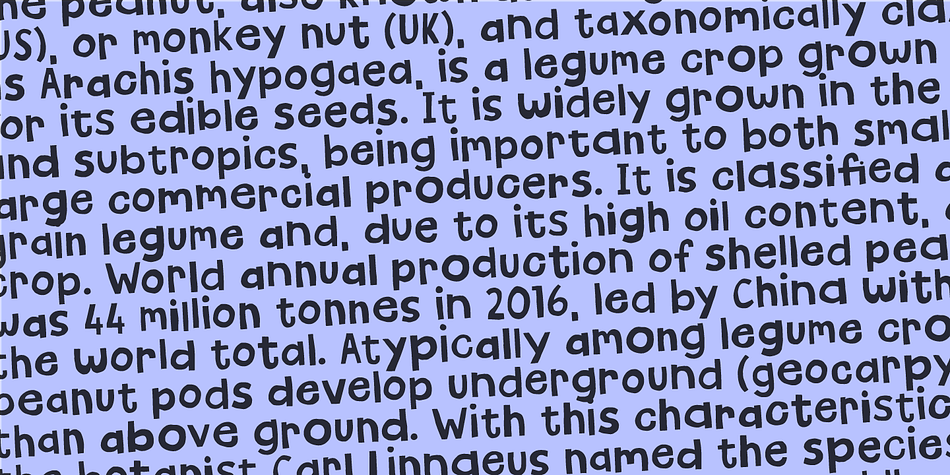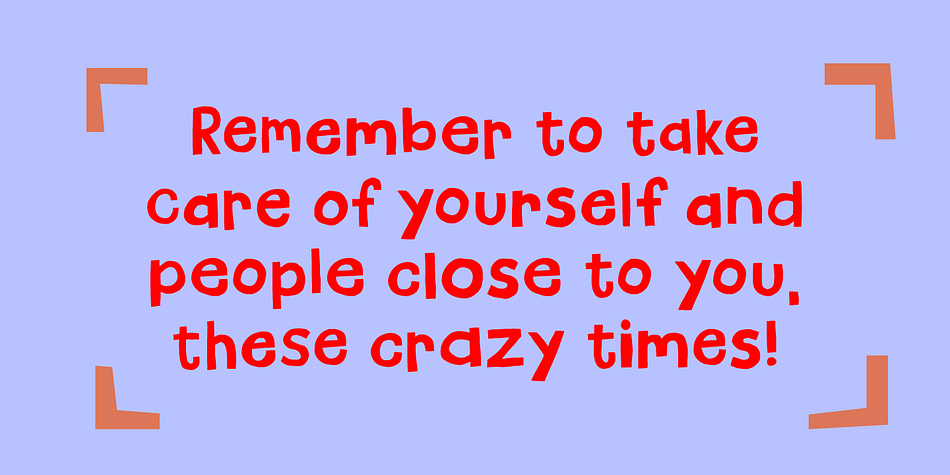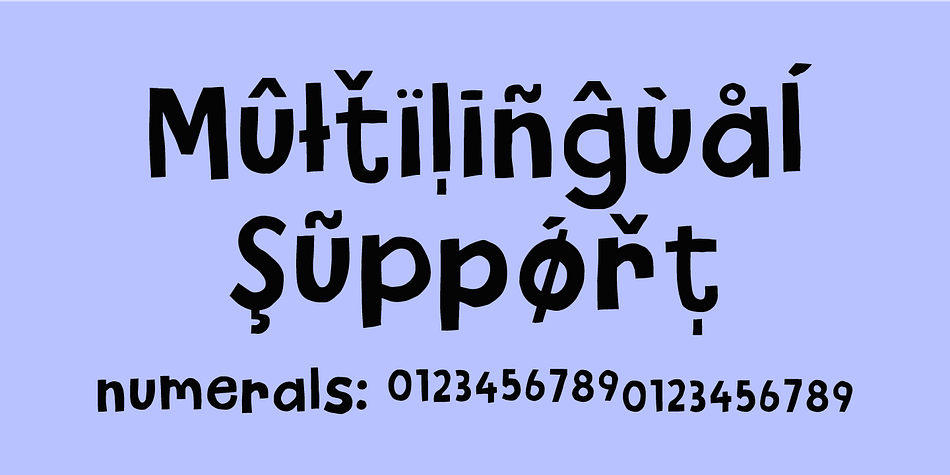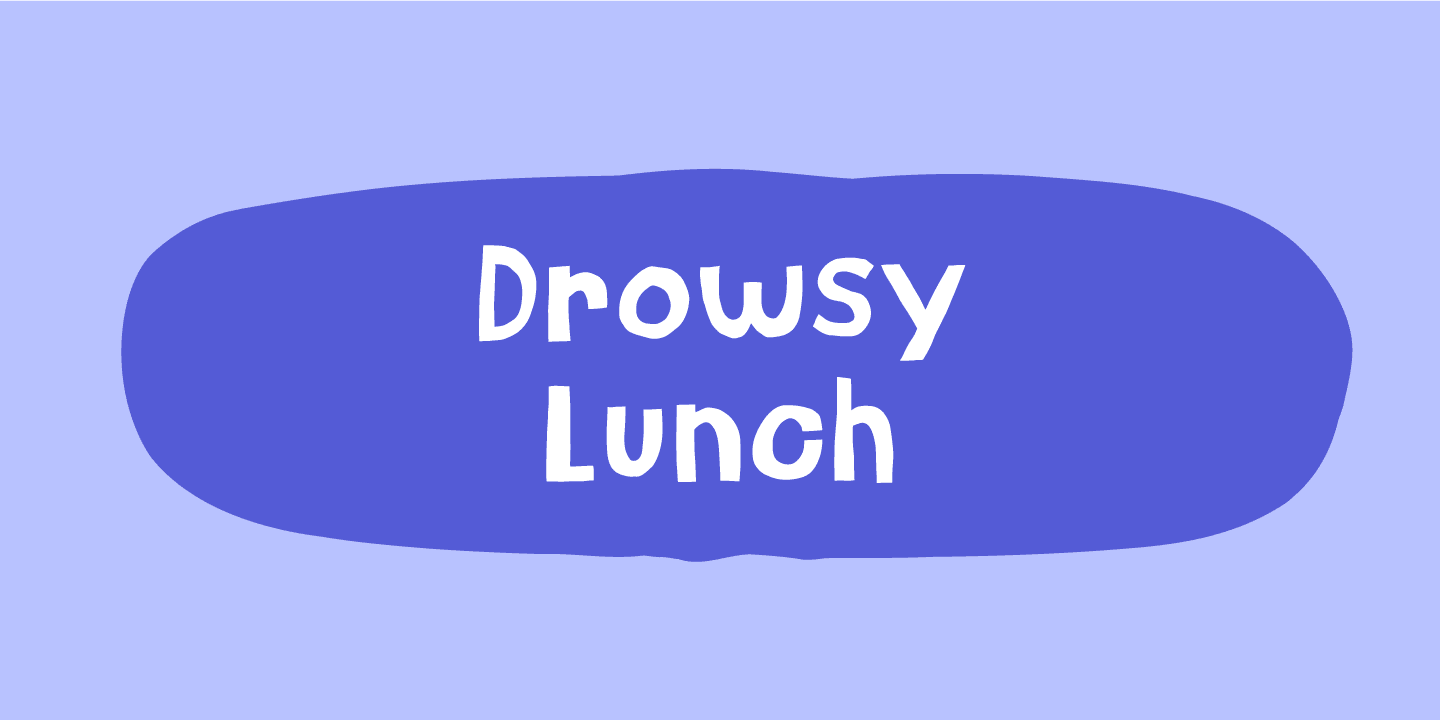
Drowsy Lunch
Designed by Jakob Fischer, Drowsy Lunch is a display and hand display font family. This typeface has two styles and was published by Pizzadude.dk.
The inspiration for this font (as well as the name!) comes from a London cafe I visited years ago. I was fascinated with the handwritten menu - irregular and awkward, yet refreshingly charming. I did my best to recall that particular look by adding 4 slightly different versions of each lowercase letter.
The name of the font comes from the speed of the waiter…or the lack of it! But luckily he took his time, otherwise I wouldn’t have had the time to really look at the handwritten menu! :)